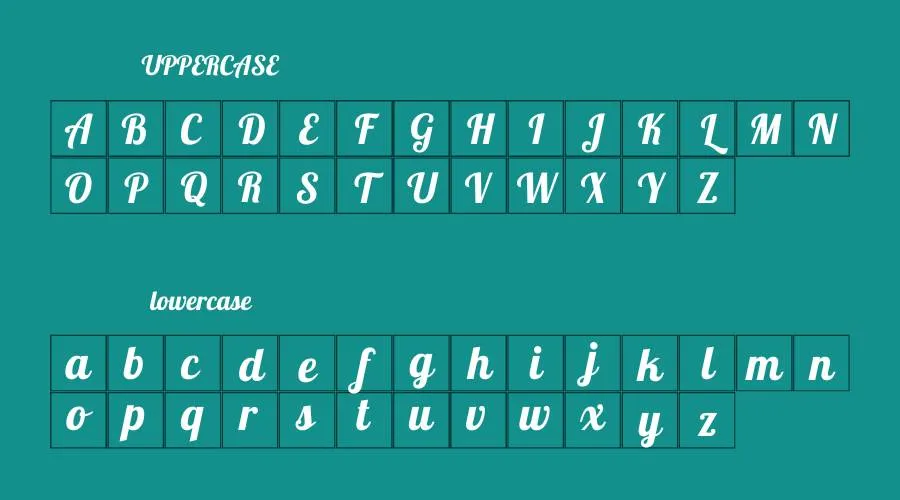
About Almost Friday Font
In this article, you are going to share with you a very elegant and attractive typeface. The Almost Friday Font was developed by a well-known graphic designer named Pablo Impallari and looks like the Calligraphy texture family. You may get it free from here for both your working systems PC and Mac.
This font is mostly utilized for various social media platforms such as Instagram for vines and Snapchat, memes, photography, and videos. A very useful font to the Almost Friday Font is "lobster". The online generator tool of this typeface will help you to transform all your normal types of alphabet set into stylish and modern shapes.
You may utilize this stunning typeface with over the moon font and make trendy designs. After it was published in the font world, it gained popularity in a very short time, because it supports many international languages such as English, Arabic, Bangla/Bengali, Mandarin, Hindi, Spanish, French, and Russian.